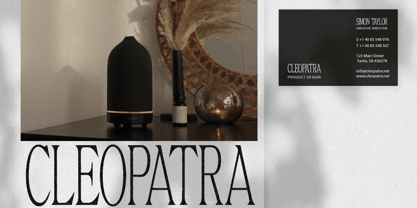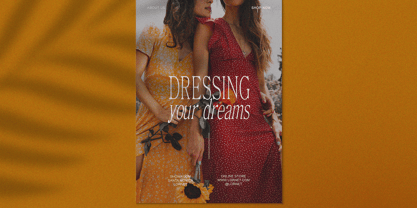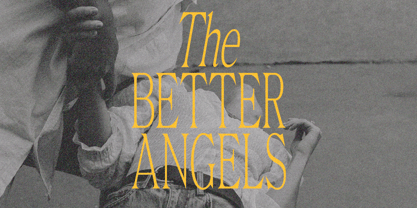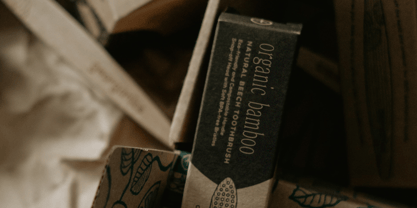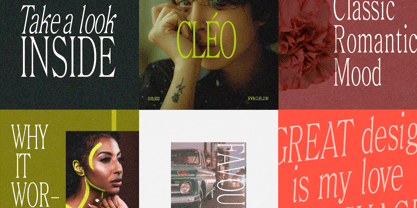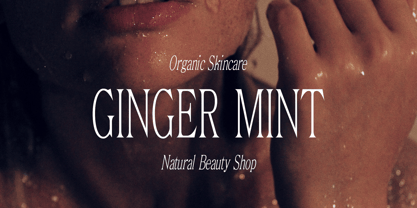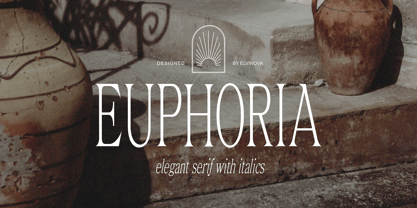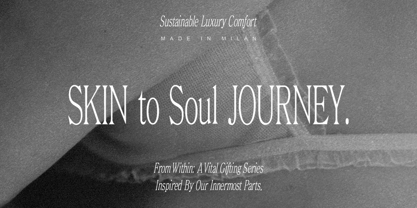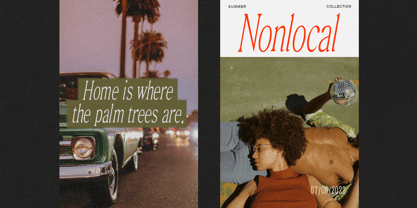
Euphoria Serif
The Euphoria Serif Font Family was designed by Elvina Gafarova and published by Elvina Studio. Euphoria Serif contains 2 styles and family package options.
Euphoria is timeless, classic, and adorned with sharply cut serifs. This font is quite minimal, and so the italic version of the font marvelously complements its character and gives it a luxurious nostalgic vibe.
• Upper/lowercase, numbers, punctuations;
• Regular, Italic.